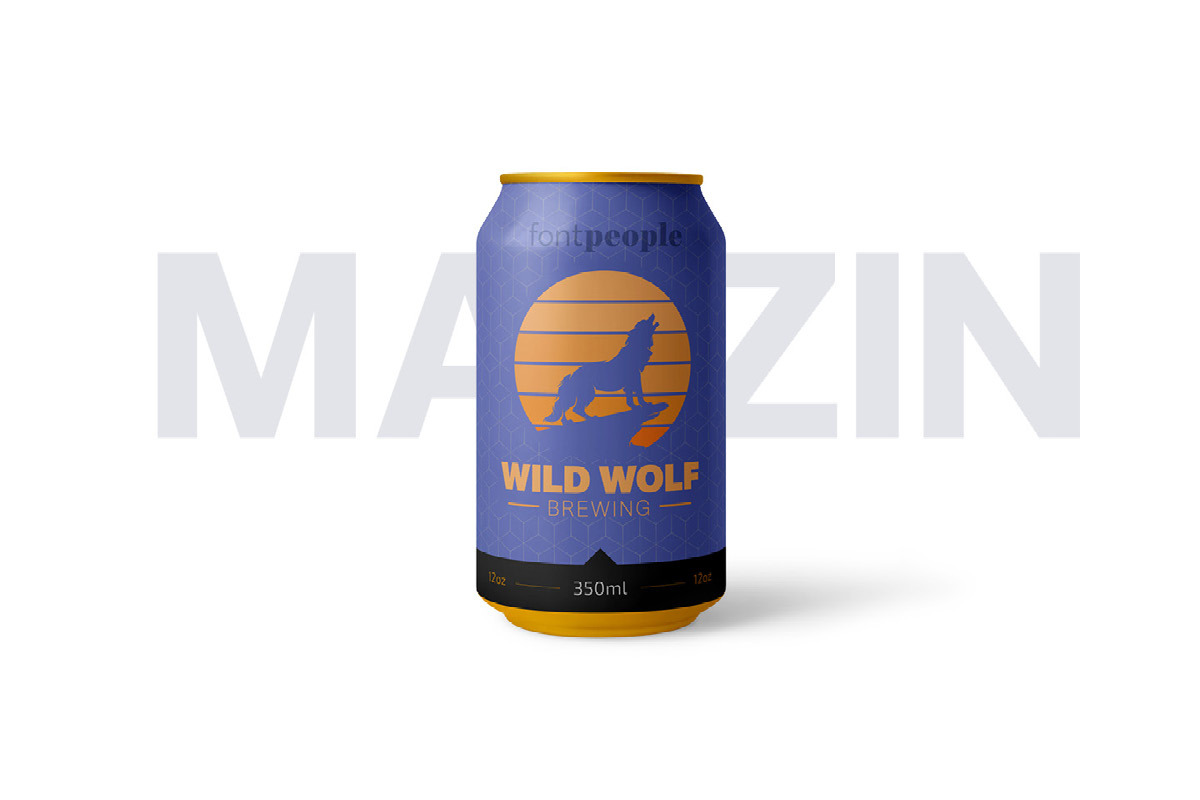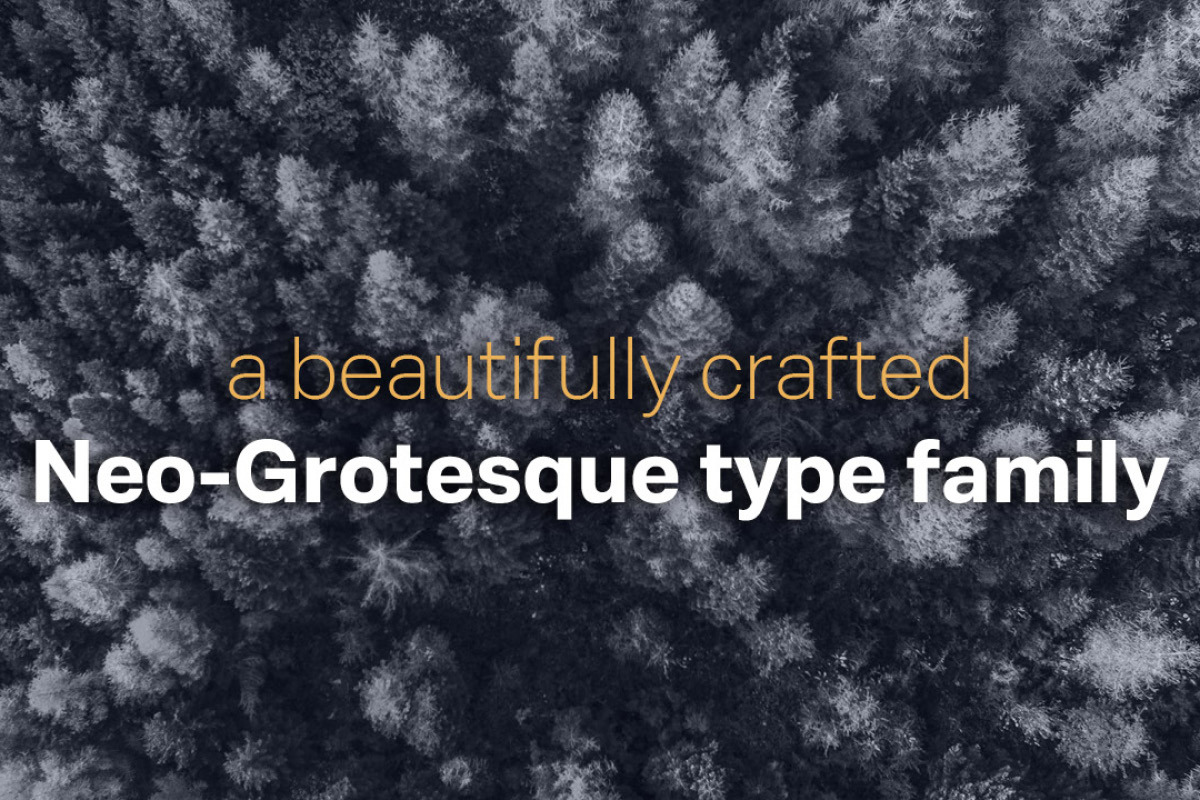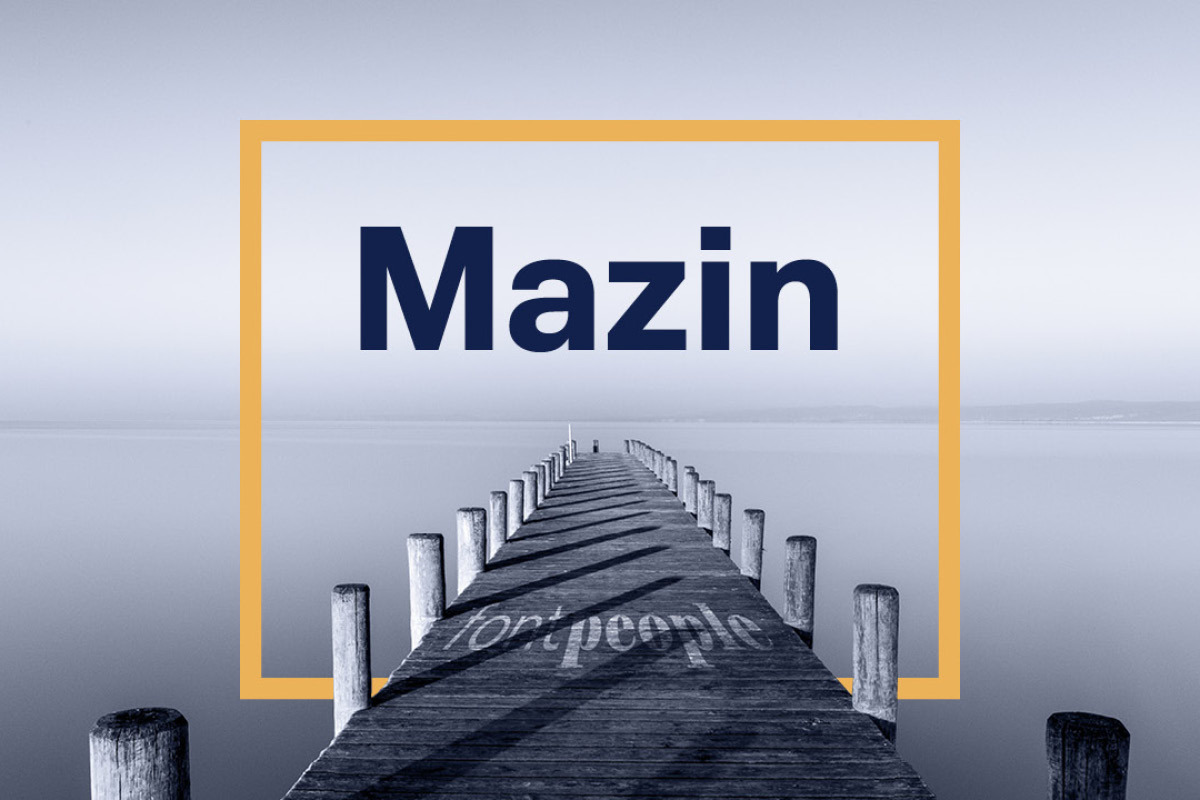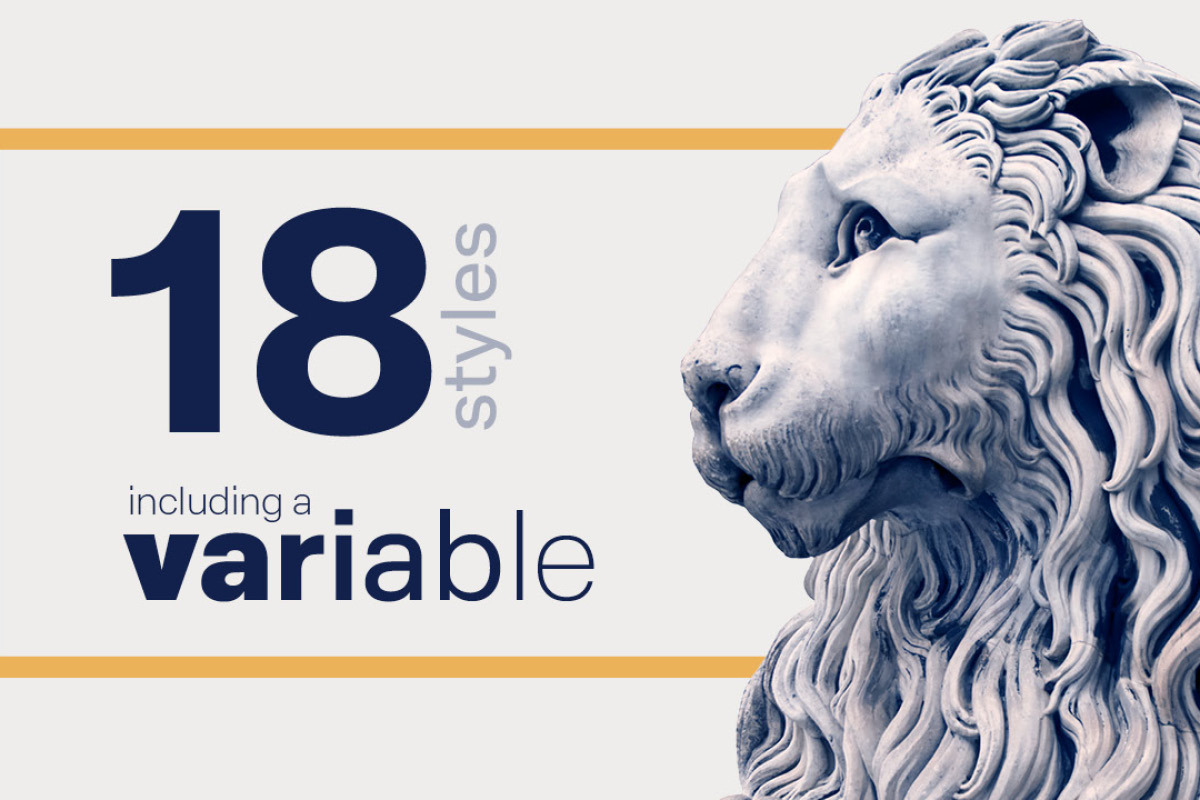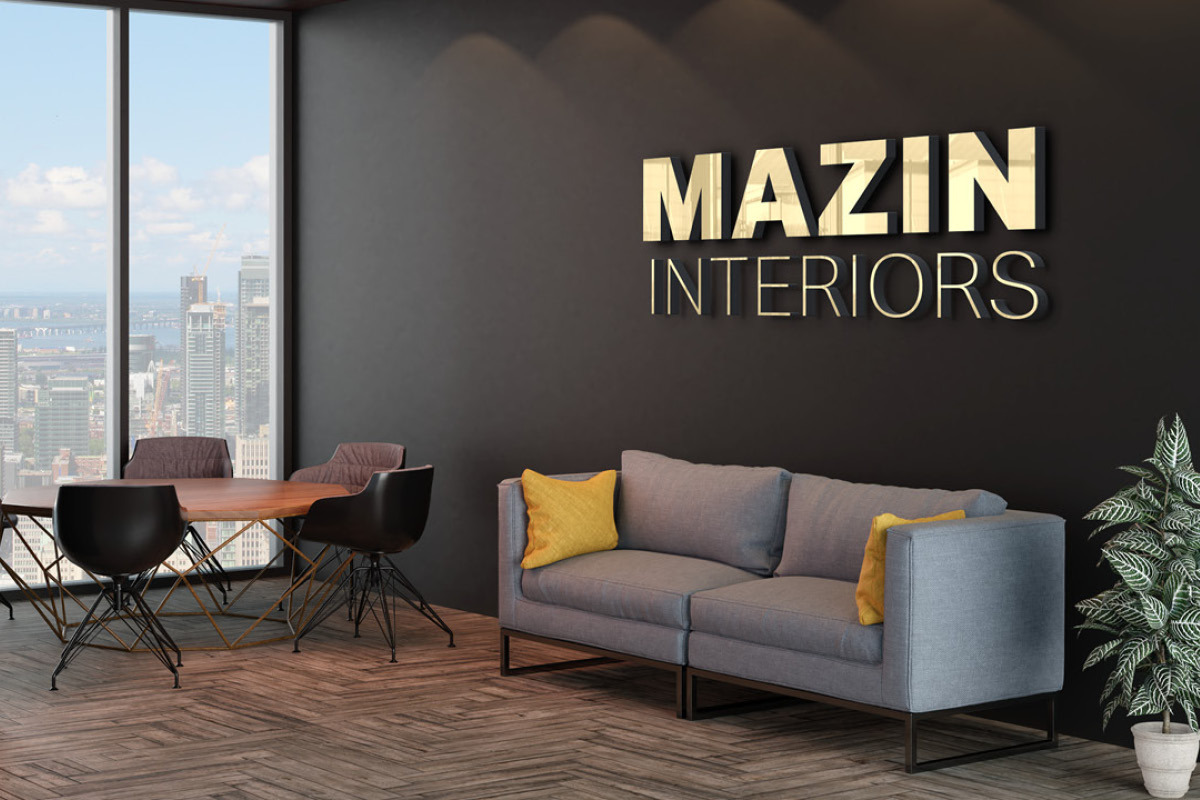
Mazin font family by FontPeople
With Mazin we struck a balance between self-consciousness and usability to create a workhorse family that is comparative in spirit to previous Neo-Grotesques. However Mazin is specifically built to perform in modern display mechanisms.
Mazin is a beautifully crafted Neo-Grotesque type family containing nine upright and nine italic fonts as well as a variable font suitable for all environments.